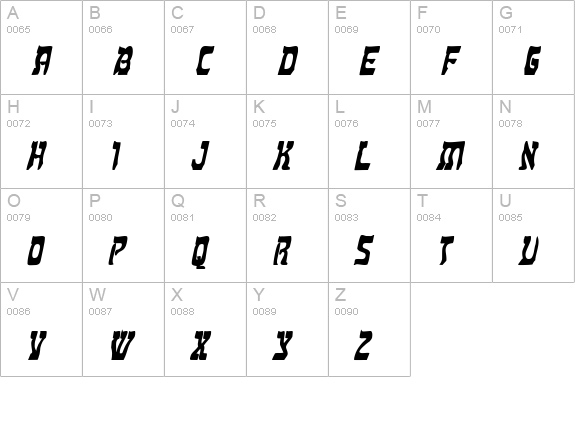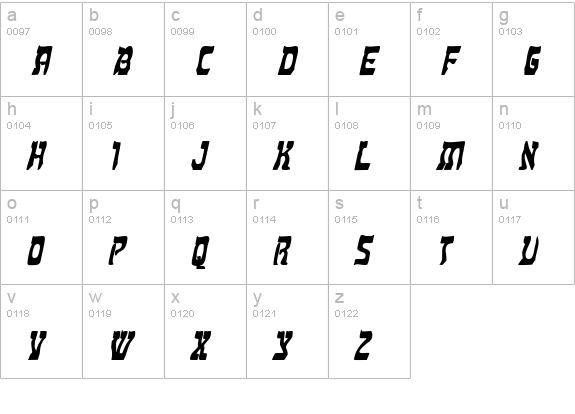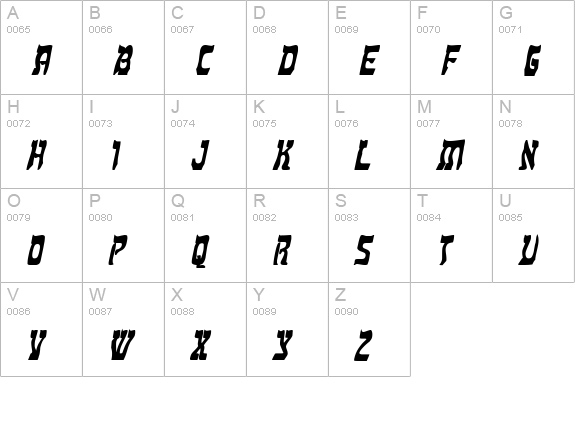
Kosher Bold Italic is a strong, high-contrast, italic variant in the Kosher typeface family \xE2\x80\x94 well suited to headlines, attention-grabbing titles, and strong calls-to-action.
Kosher Bold Italic font is a striking and modern typeface that exudes elegance and sophistication. Its bold and italic design adds a touch of flair to any project, making it perfect for headlines, titles, and other attention-grabbing elements. The sleek lines and distinctive curves of this font make it a versatile choice for both print and digital designs. What sets Kosher Bold Italic font apart is its unique blend of traditional and contemporary styles, giving it a timeless appeal that is sure to make a statement. Whether you are designing a poster, a website, or a branding project, this font is sure to elevate your work to the next level. Best of all, Kosher Bold Italic font is free to download at FontsMarket.com. So go ahead and enhance your designs with this eye-catching and stylish typeface today!